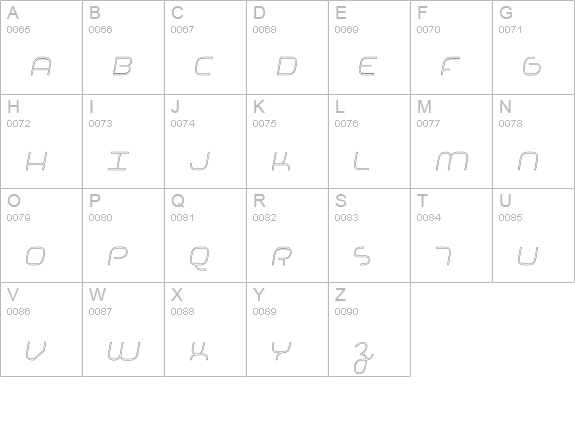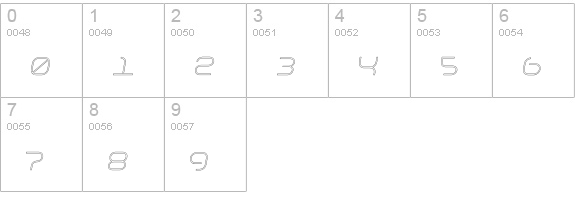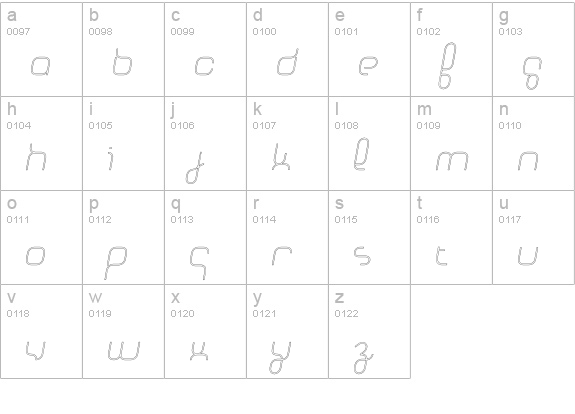
Basis-ObliqueOutline is a modern and stylish font that exudes sophistication and elegance. Its unique oblique outline design gives it a distinctive edge, making it perfect for adding a touch of creativity to your projects. This versatile font is suitable for a wide range of design purposes, from branding to editorial design. The best part? Basis-ObliqueOutline is available for free download at FontsMarket.com. So, whether you're a designer looking to enhance your projects or a business owner seeking a fresh look for your brand, this font is a fantastic choice. Don't miss out on the opportunity to elevate your designs with this eye-catching and trendy typeface. Download Basis-ObliqueOutline today and let your creativity shine!